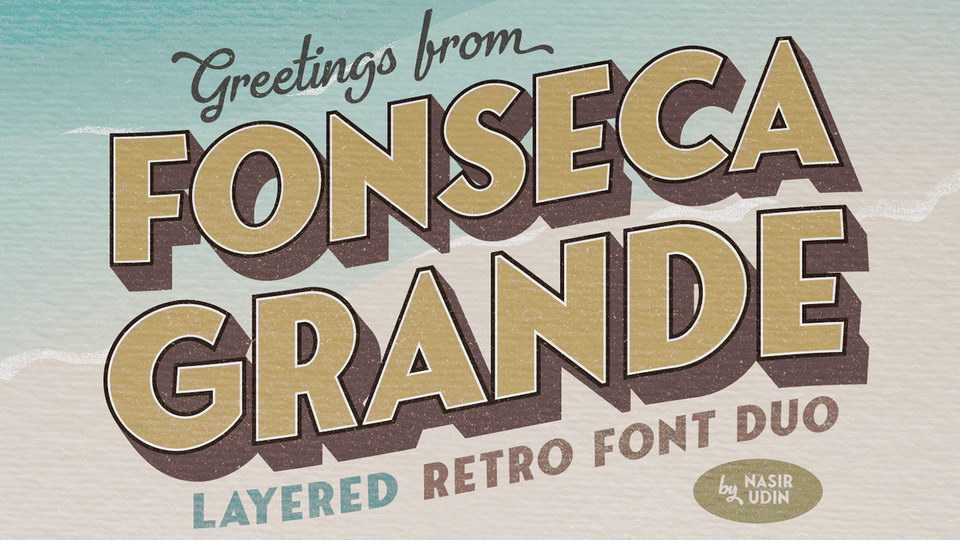
Download Fonseca Grande font, an amazing vintage typeface. Fonseca Grande font is perfect for postcards, but also great for branding, posters, packaging, restaurant menus, stamps, badges, signage, you guys are the expert at this field!